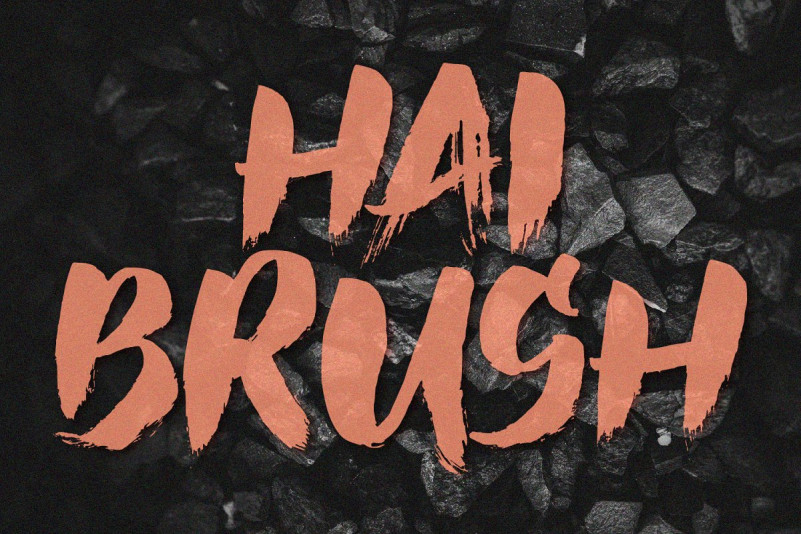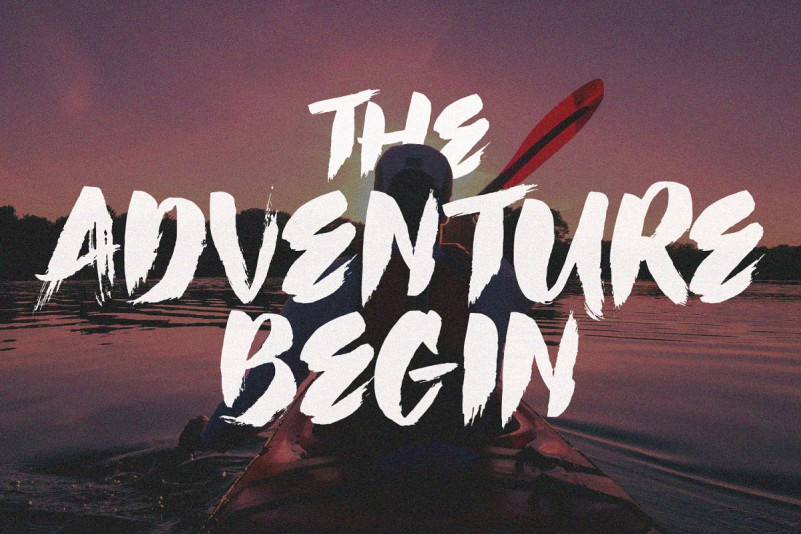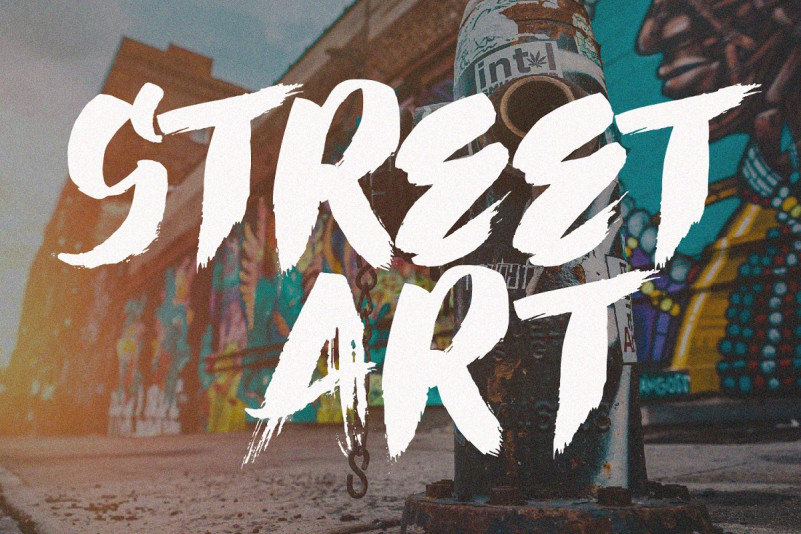
Hai Brush Font
Hai Brush Font is a font that has a Natural Brush style. Very suitable for food posters, for logos, music covers, clothes, s and many cool design projects.